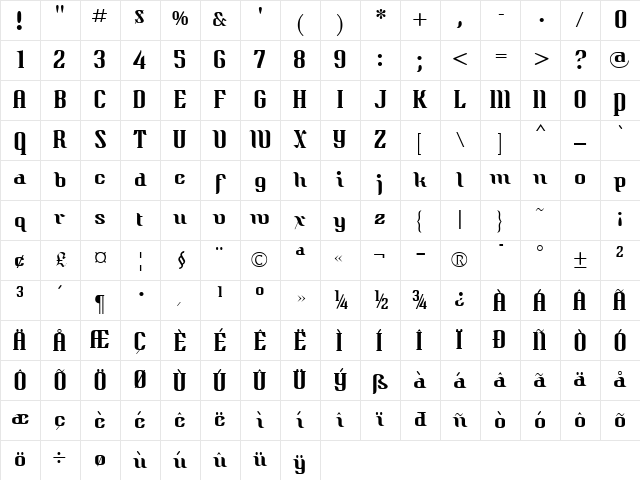
Quidic Regular Free Font
Quidic Regular
Design Context for Quidic
Quidic is a composed and adaptable typeface that performs quietly and consistently across a wide range of design contexts.